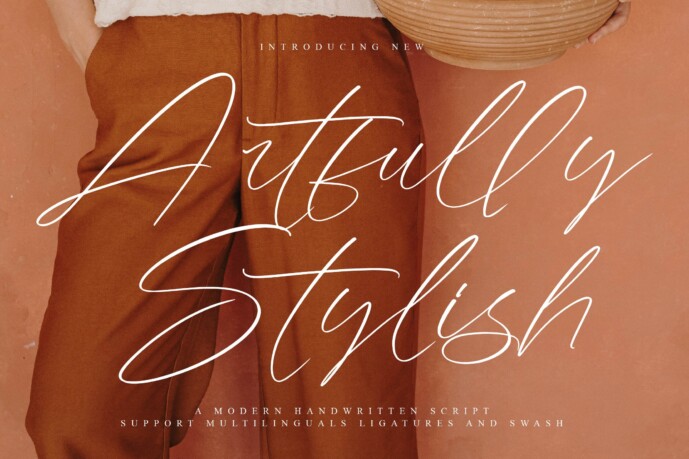
Artfully Stylish is a sleek, fashion-forward handwritten font designed with elegance and versatility in mind. Its long, flowing lines and multilingual support make it ideal for branding, social media graphics, packaging, and stylish editorial designs.